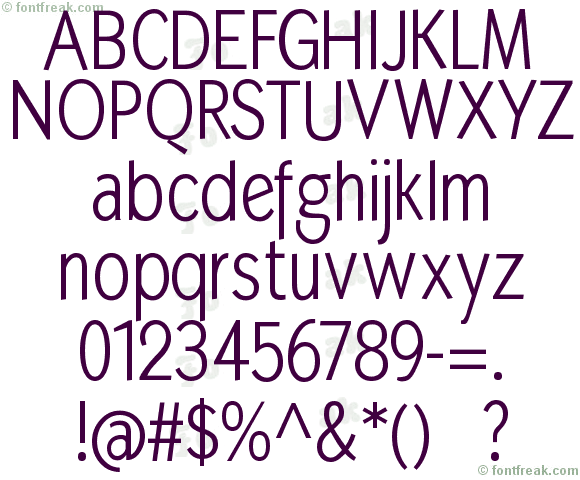
MKAbel
About MKAbel
MKAbel, designed by Manfred Klein, is a versatile sans-serif font that effortlessly combines modern aesthetics with functional clarity. Characterized by its clean lines and geometric forms, MKAbel features a consistent stroke weight that provides a balanced appearance, making it ideal for a variety of design applications. The font exhibits minimal contrast, which enhances its legibility, while the generous spacing between characters contributes to a sense of openness and readability.
This font is particularly well-suited for projects that require a contemporary touch. It shines in use cases such as branding for tech startups, where clarity and modernity are paramount. MKAbel also makes an excellent choice for website headers and digital content, ensuring that messages are conveyed with precision. Additionally, its straightforward elegance is perfect for restaurant menus and promotional materials, where a clean presentation can enhance the dining experience. For graphic designers and content creators, MKAbel font free download provides a valuable resource for crafting eye-catching visuals without the burden of licensing costs.
The target audience for MKAbel includes graphic designers looking to elevate their projects with a refined typeface, small business owners seeking a professional yet approachable font for their branding, and content creators who need a reliable typeface for various media. MKAbel stands out not only for its aesthetic appeal but also for its versatility across different mediums. Its simple yet sophisticated design allows it to adapt seamlessly to both print and digital formats, making it a go-to choice for anyone looking to make a lasting impression. Whether used in a sleek website layout or an impactful poster design, MKAbel is a font that delivers clarity and style in every application.